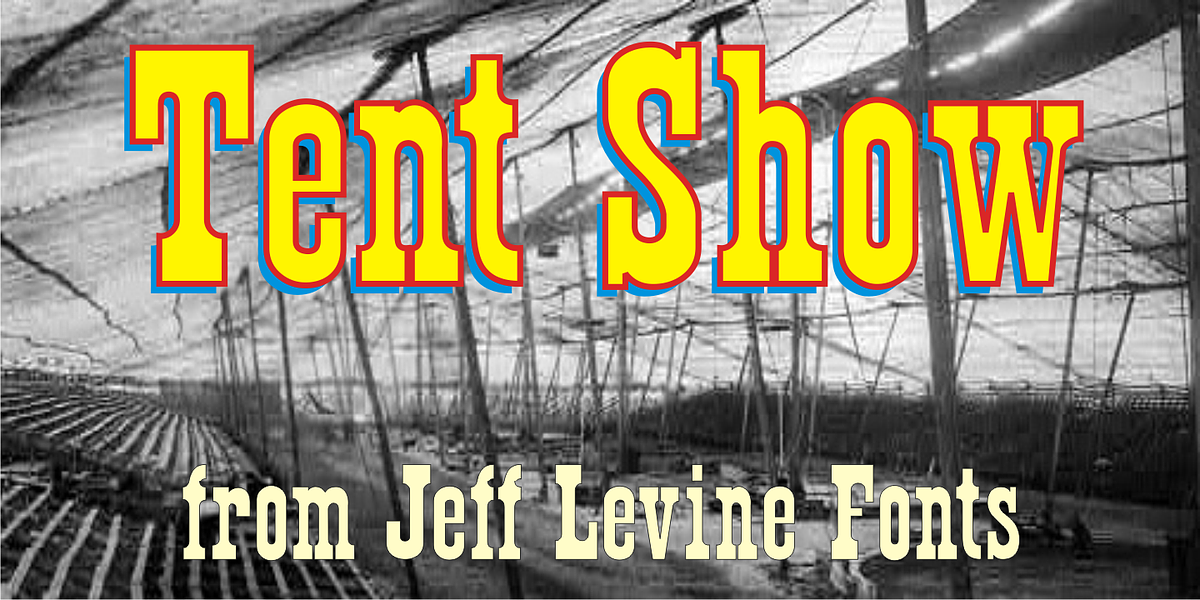
Tent Show JNL
Call the lettering French Clarendon Condensed, call it circus lettering, wanted poster type or Old West letters, the style of this typeface is one of the most recognizable and evokes all of the above images and more.
Tent Show JNL was re-drawn from examples of a vintage set of wood type, and contains all of the eccentricities that are present in these hand-routed classic letter forms.